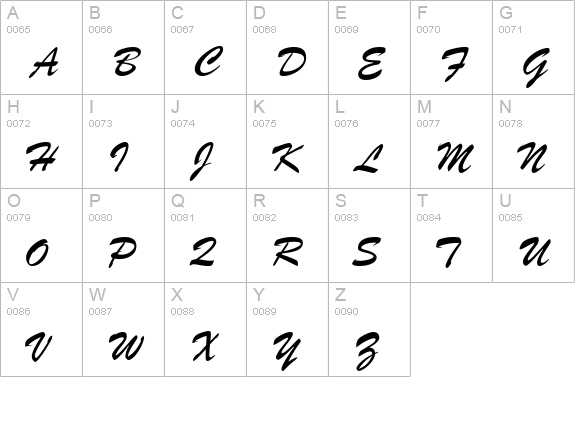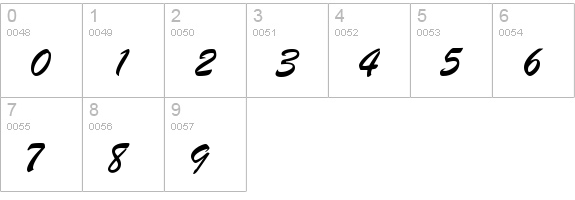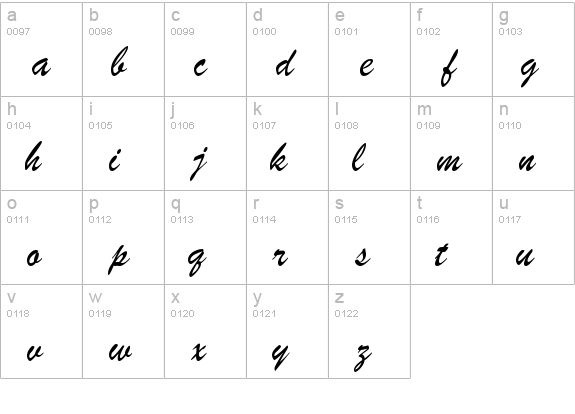
BrushScriptSW Light is a refined, elegant variant in the BrushScriptSW typeface family \xE2\x80\x94 well suited to elegant body text, refined sub-headings, and luxury branding.
BrushScriptSW Light is a charming and elegant font that exudes a sense of creativity and sophistication. Its delicate and flowing strokes give off a handwritten quality that adds a personal touch to any project. This font is perfect for adding a touch of whimsy to invitations, greeting cards, or any design that calls for a touch of elegance. The best part? BrushScriptSW Light is available for free download at FontsMarket.com. This means you can easily access this beautiful font and incorporate it into your designs without any cost. Whether you're a professional designer or a hobbyist looking to add some flair to your projects, BrushScriptSW Light is a versatile and stylish choice that won't break the bank. Download it today and let your creativity soar with this lovely and free font.